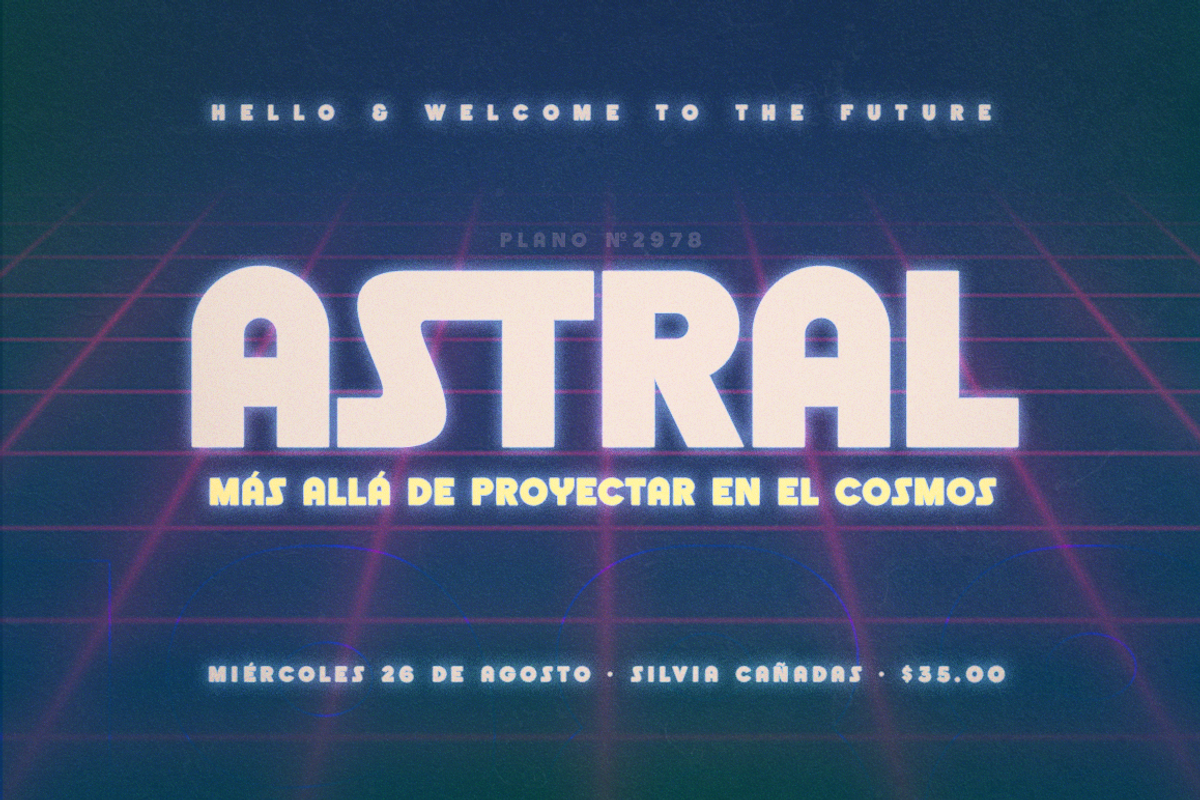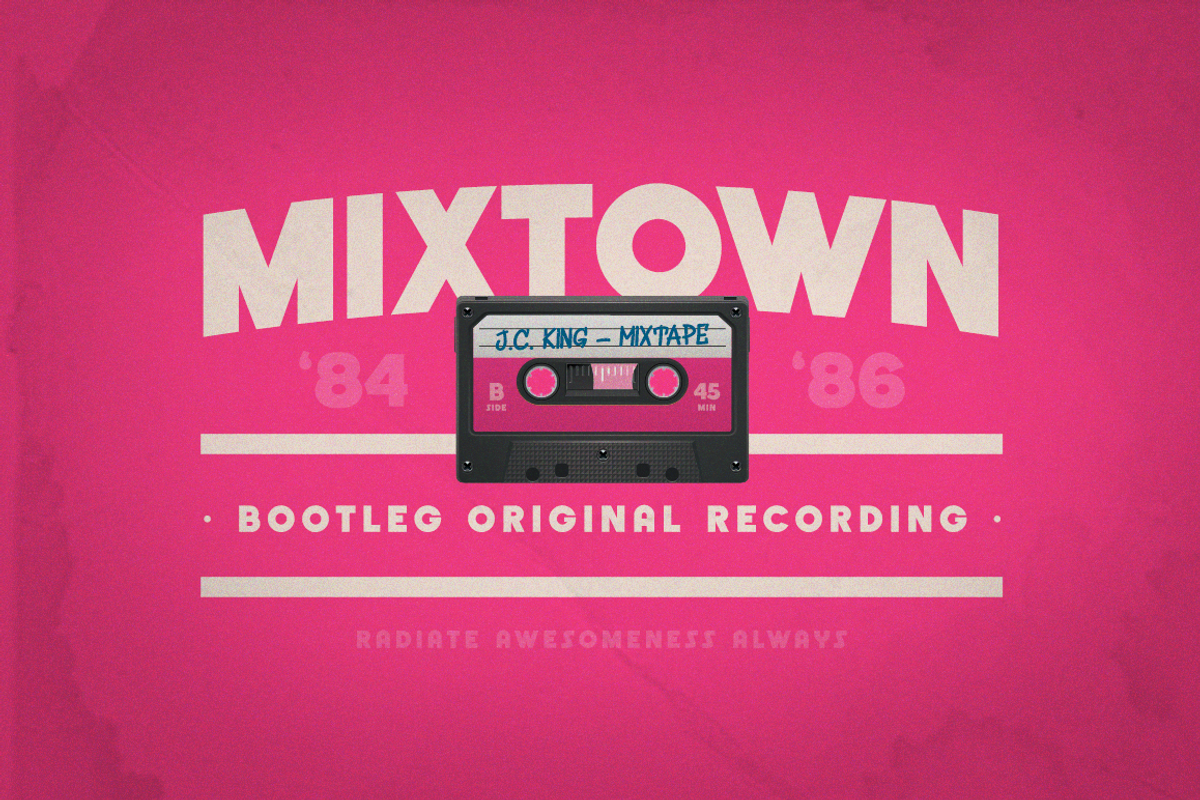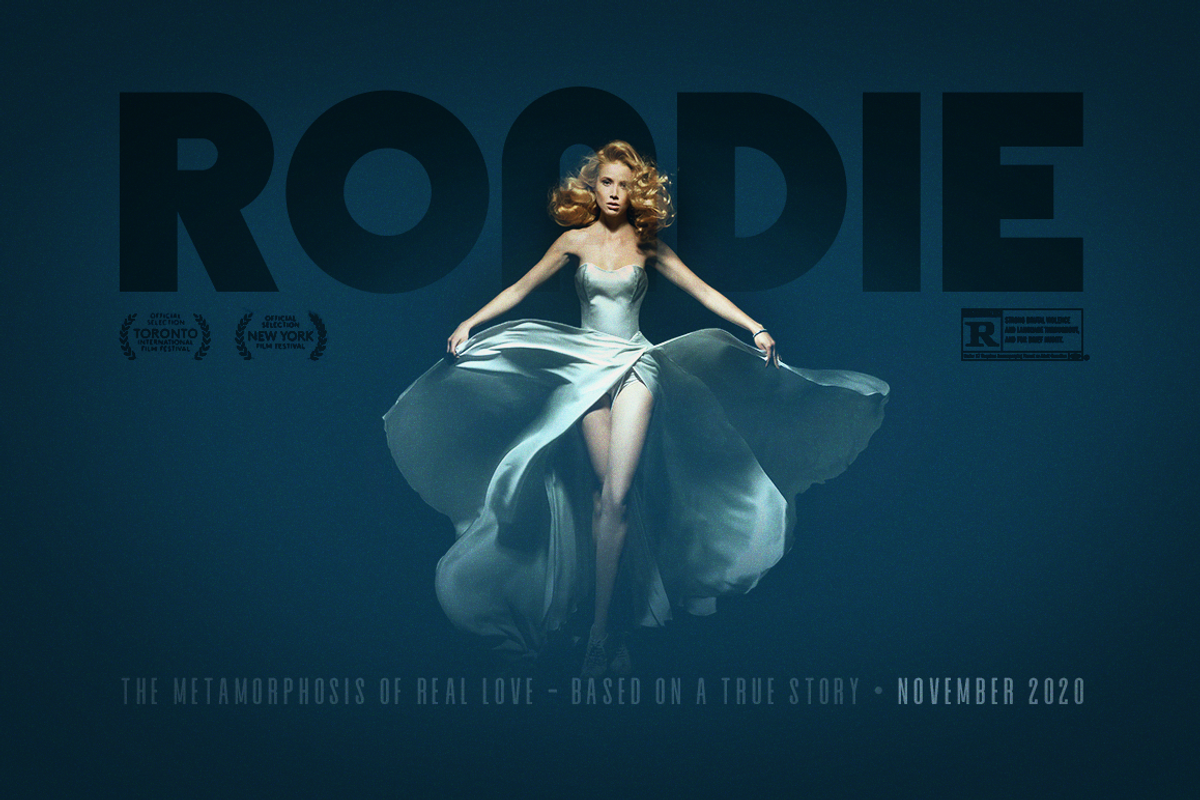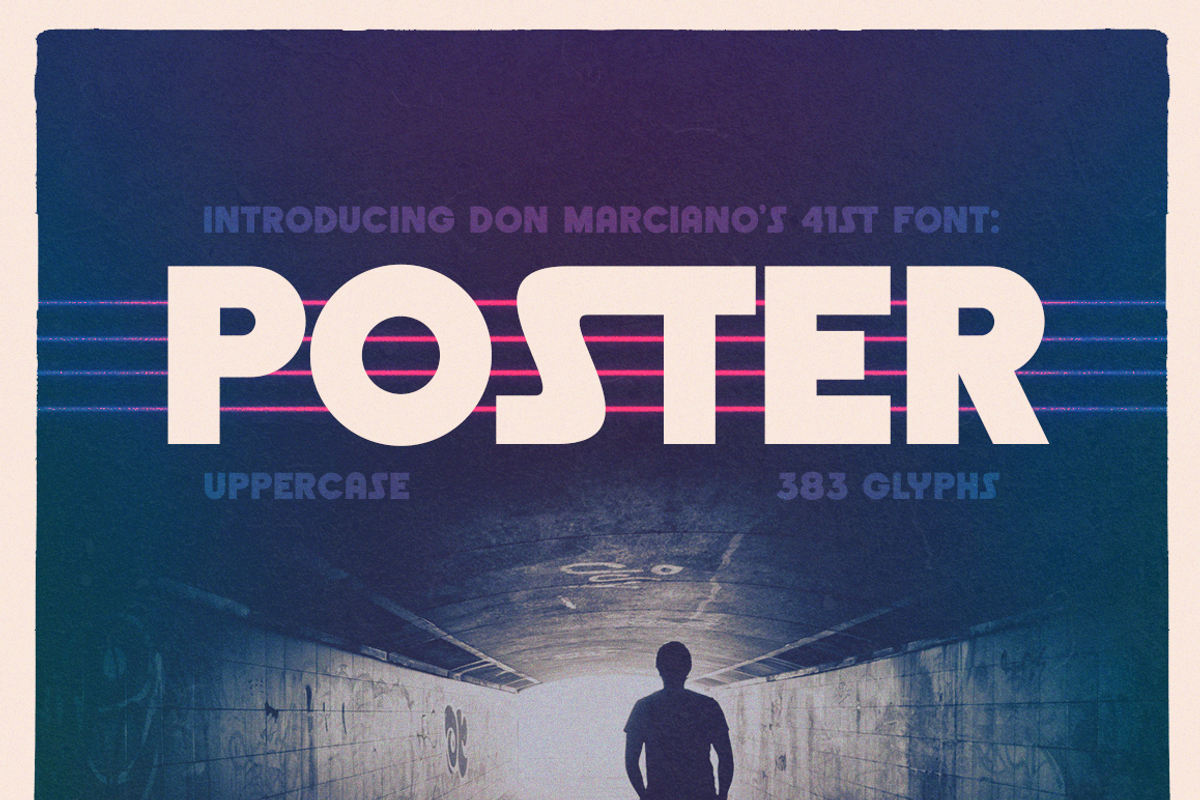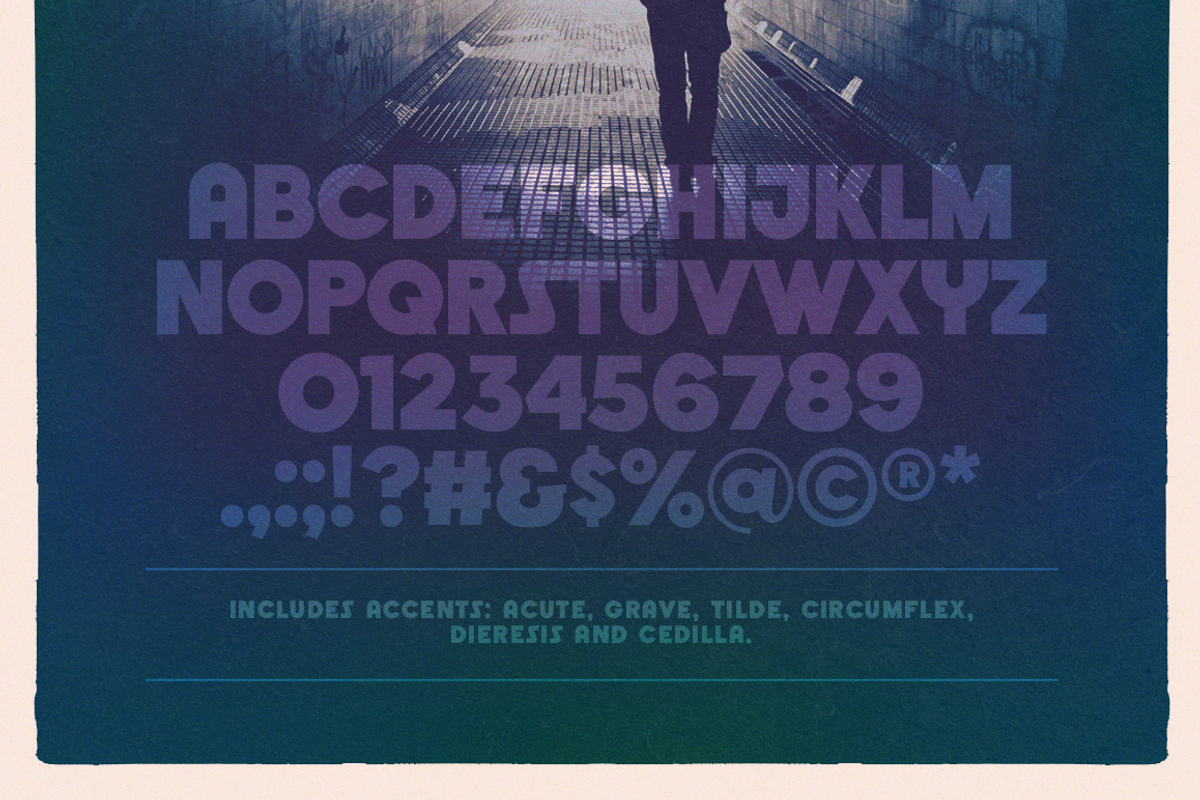
Poster Bold
Poster is a clean strong bold display font, design for a personalized series of prints with a modern flair on a vintage-retro backdrop; created for simple, short and powerful titles in any medium.